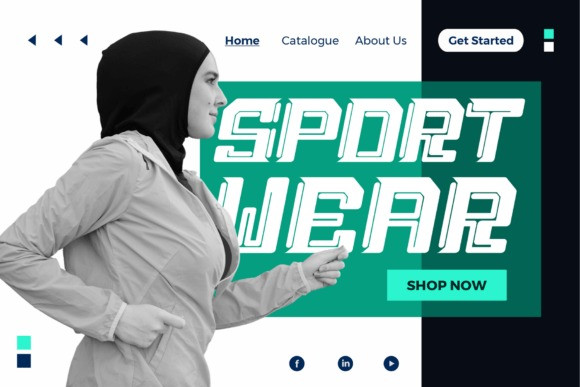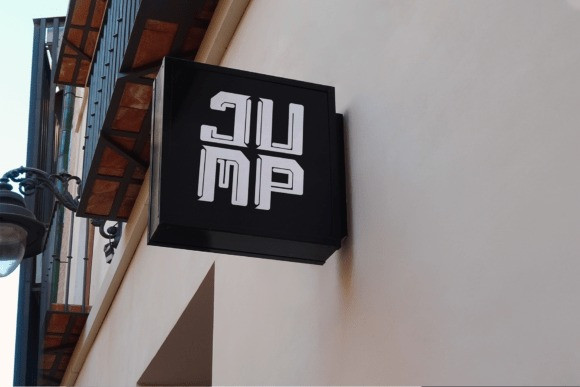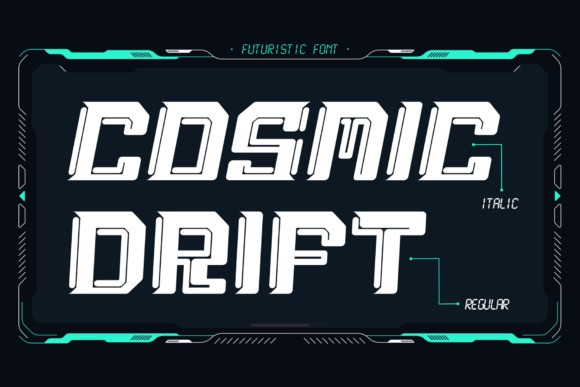
Cosmic Drift Font
Cosmic Drift Font a captivating sense of velocity, precision, and high-tech vigor, Cosmic Drift is an inventive futuristic typeface that encompasses the spirit of sci-fi racing, digital platforms, and progressive machinery.
This meticulously conceived font seamlessly merges rigid geometric contours with fluid, directional strokes, resulting in an apparent sense of movement and energy. Available in both Regular and Italic styles, Cosmic Drift offers a variety of expressions – from constant stability to dynamism. Choose Regular to depict robust power and Italic for a sense of swift motion, bringing your text alive as though it’s perpetually drifting or surging through a futuristic landscape.
This one-of-a-kind typeface amalgamates inspirations from cutting-edge cyber technology, space exploration, robotic engineering, and otherworldly interfaces into every character, making it an impeccable choice for modern visual narratives. Cosmic Drift conveys bold profiles and sharp, technical details that hold their ground across digital canvases, handbills, esports illustrations, and tech-centric brand communications. It ensures a balance between a sophisticated architectural entirety and exceptional readability, retaining absolute clarity for impactful headlines and layouts.
Offering a complete set of uppercase letters, numbers, punctuation, and multi-language support, Cosmic Drift provides designers with an exhaustive toolkit for global applications and intricate typographic requirements.
Its dual-style feature makes it ideal for pairing within the same design layout, using Regular for showcasing raw strength and Italic for projecting the feel of acceleration. It creates a comprehensive, futuristic system laced with inherent versatility. Cosmic Drift is optimal for: marketing and identification of technological brands and digital commodities, racing themes and mech UI displays, gaming insignias, product packaging with a futuristic appeal, and more.
Unlike the excessively unconventional sci-fi fonts, Cosmic Drift harmonizes its dramatic flair with balanced structural integrity, maintaining consistency for brand utilization.
This futuristic typeface, ideal for the cyberpunk-inspired, tech-futurist, and racing visual arts, resonates with a vibrating echo of motion and evolution, making it a favorite among forward-thinking creators and designers driven by a future-centric vision.